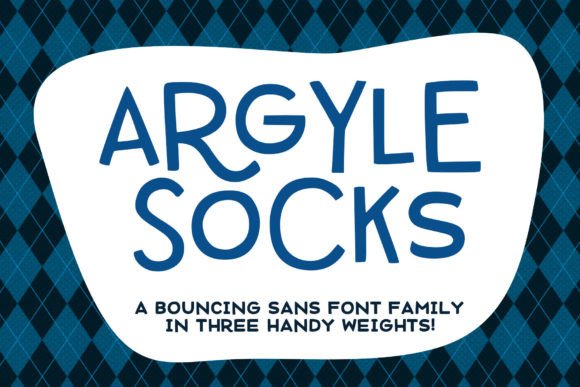
The Argyle Socks Font: A Designer’s New Best Friend
I still remember the moment I stumbled upon a video about Saul Bass’s iconic movie poster designs. The elegant, handwritten sans-serifs caught my eye, and I was particularly fascinated by the way some letter combinations cradled each other. It was then that I decided to take inspiration from Bass’s work and create a font that would bring a touch of his magic to my own design projects. And so, Argyle Socks was born! ✨
A Personal Story: The Making of Argyle Socks
As a designer, I’ve always been on the lookout for fonts that can add a personal touch to my projects. When working on a recent branding project, I found myself struggling to find the perfect font that would capture the playful yet sophisticated vibe I was aiming for. That’s when I decided to take matters into my own hands and create a font that would meet my needs. I drew inspiration from Saul Bass’s work and aimed to create a font that would be both clean and playful. After months of work, Argyle Socks was finally complete! 🎉
What Makes Argyle Socks Special?
Argyle Socks is a sans-serif font with a twist – it’s been drawn by hand, giving it a unique, organic feel. The font comes in four full alphabets: uppercase, lowercase, small caps, and stylistic alternates. But what really sets it apart is the inclusion of dozens of two-letter ligatures, which allow you to add fun and variety to your designs. Whether you’re working on a logo, branding project, or craft project, Argyle Socks has got you covered. 📦
Weights and Glyphs
Argyle Socks comes in three weights: regular, thin, and thick. This means you’ll have the perfect size for every project, whether you need a bold statement or a more subtle look. And with 700 glyphs, including the uppercase Greek alphabet and over 300 extended Latin characters, you’ll have all the language support you need. 🌎
The Good ✨
- Unique, hand-drawn feel that’s perfect for adding personality to your designs
- Four full alphabets, including stylistic alternates and small caps
- Dozens of two-letter ligatures for added variety
- Three weights to suit every project
- Extensive language support with 700 glyphs
The Not-So-Good 🤔
- Some users may find the font a bit too playful for very formal projects ⚠️
- While the font is versatile, it may not be the best fit for very large or very small text sizes
The Story Behind Argyle Socks: Designer Inspiration
Argyle Socks was inspired by the iconic movie poster designs of Saul Bass. Bass was a legendary designer known for his elegant, sophisticated designs, and his use of simple, handwritten sans-serifs. I wanted to capture the essence of his style and create a font that would bring a touch of his magic to my own design projects. 🎥
| Font Name | Argyle Socks Font |
| Author | GeekMissy |
| What inspired the creation of Argyle Socks? | The iconic movie poster designs of Saul Bass inspired the creation of Argyle Socks. |
| What makes Argyle Socks unique? | Argyle Socks is unique due to its hand-drawn feel, four full alphabets, and dozens of two-letter ligatures. |
| Is Argyle Socks suitable for large or small text sizes? | While Argyle Socks is versatile, it may not be the best fit for very large or very small text sizes. |